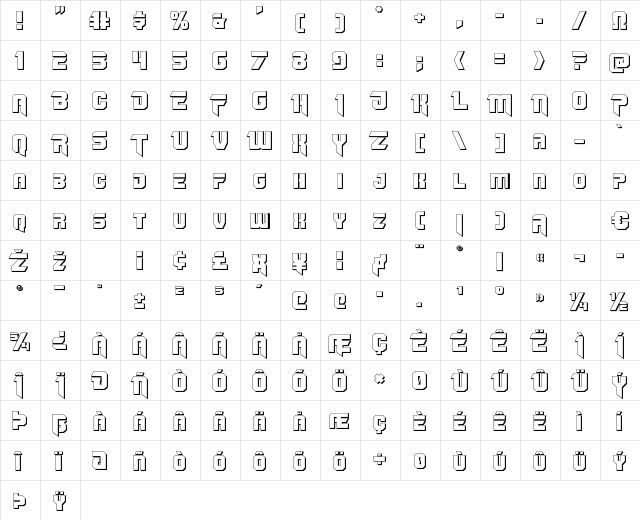
OmegaForce 3D Regular
Design Context for OmegaForce 3D Typeface
OmegaForce 3D brings high-energy athletic personality to the page — its confident, muscular forms are built for impact.
A natural choice for gym brands, fantasy sports, jersey lettering, and action-driven headlines.
Pro Tip: Use OmegaForce 3D in all-caps headlines where its athletic energy can fully express itself. Pair with a solid, simple sans for supporting text.